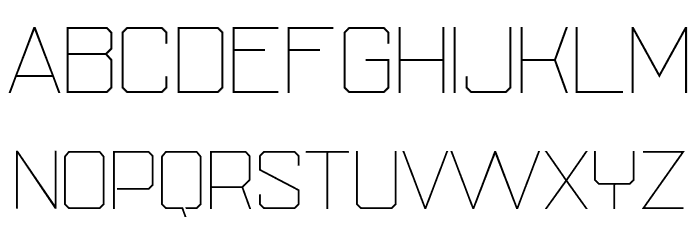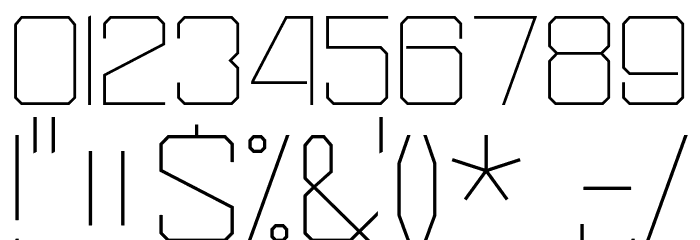
SU-30SM 150 Font
This font features a geometric and angular design, characterized by its clean, straight lines and sharp corners. The uppercase and lowercase letters maintain a consistent height, contributing to a uniform appearance. The numerals and special characters follow the same angular style, ensuring a cohesive look across all characters. The font's structure is reminiscent of technical or engineering drawings, giving it a precise and modern feel. Its simplicity and clarity make it highly legible, even at smaller sizes. The overall aesthetic is minimalistic, with no additional embellishments or curves, emphasizing functionality and readability.
A geometric, angular font with a modern and technical appearance.
- Proposed Projects: Ideal for technical documents, engineering presentations, modern branding, and digital interfaces.
- Use Case: Headlines, Technical documents, Branding